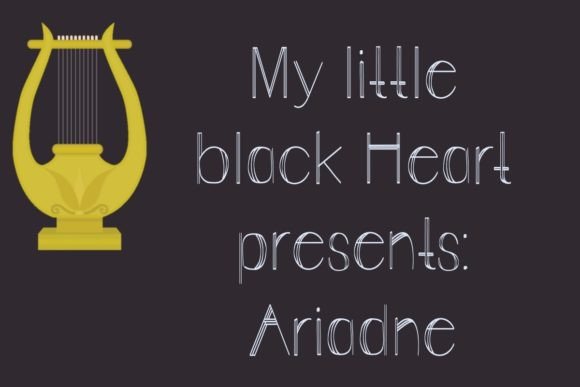
The Designer’s Dream: Unlocking the Potential of Ariadne Font
I’ll never forget the moment I stumbled upon Ariadne Font while working on a branding project for a luxury boutique hotel. I had spent hours scouring font libraries, trying to find the perfect match for my client’s unique style. The design brief called for something elegant, yet bold; sophisticated, yet playful. As soon as I laid eyes on Ariadne, I knew I had found my holy grail. In this article, I’ll share my experience with this incredible display font, its features, and how to make the most of it in your designs.
Ariadne Font has quickly become a staple in my design toolkit, and for good reason. Here are some of the things that make it stand out:
• ✨ Unique character: Ariadne’s design is unlike any other font I’ve seen. Its distinctive flair and elegance make it perfect for headlines, titles, and statements.
• ✅ High versatility: Whether I’m working on a luxury brand, a creative agency, or a personal project, Ariadne seems to adapt seamlessly.
• 💡 Inspires creativity: The font’s unique features and OpenType capabilities encourage experimentation and creativity.
Of course, no font is perfect, and Ariadne has a few quirks:
• 🤔 Limited use for body text: Due to its elaborate design, Ariadne is best suited for display purposes. It might not be the best choice for lengthy paragraphs.
• ⚠️ Requires attention to spacing: To get the most out of Ariadne, you need to pay attention to letter spacing and word spacing to ensure optimal readability.
The Story Behind Ariadne: Designer Inspiration
Legend has it that Ariadne was inspired by ancient Greek mythology and the intricate patterns found in Minoan art. The font’s creator aimed to evoke the elegance and mystique of the mythological heroine Ariadne, who helped Theseus navigate the labyrinth. This rich history and cultural significance are reflected in the font’s unique character and ornate details.
Q: What makes Ariadne Font unique?
A: Ariadne’s distinctive design, combining elegance with boldness, sets it apart from other fonts.
Q: Can I use Ariadne for body text?
A: While possible, Ariadne is best suited for display purposes due to its elaborate design.
Q: Does Ariadne support OpenType features?
A: Yes, Ariadne supports OpenType features, including alternate glyphs, ligatures, and stylistic sets.
Q: Is Ariadne suitable for branding and logo design?
A: Absolutely! Ariadne’s unique character and versatility make it an excellent choice for branding and logo design.